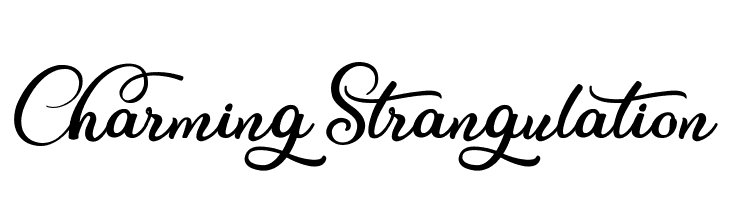
A casual handwritten font with a dynamic and flowing style.
A bold decorative font using illustrated faces as characters.
设计师偏爱 BROKEN STORM, GFSPyrsos-Regular, voxBOX Halftone Italic, Maniac Outline Regular and Kung-Fu Master Super-Italic,因为其造型干净、适用范围广—— 从品牌识别到落地页、海报都能胜任。